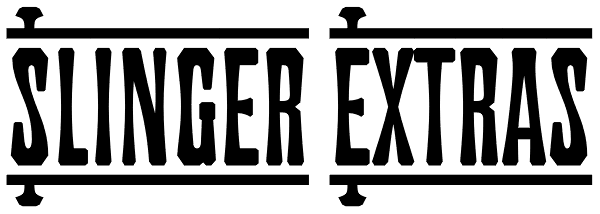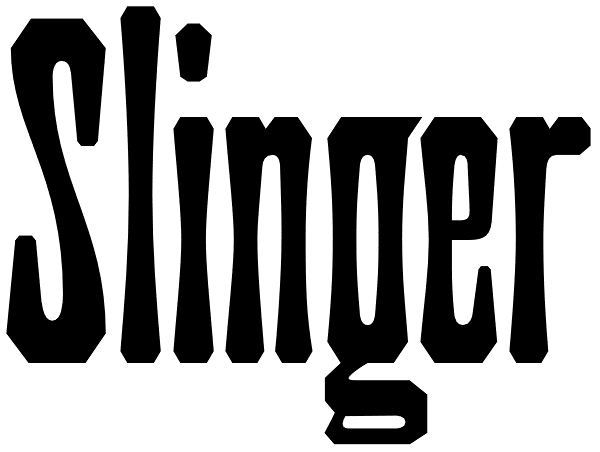
Slinger
Slinger is a tribute to eighteenth century and nineteenth century wood type, inspired by the following passage from a Dime Western: Rosalinda gave a low scream of horror as she saw the Rio Kid and her cousin knee rein their mounts out of the line...
Slinger Extras
Slinger